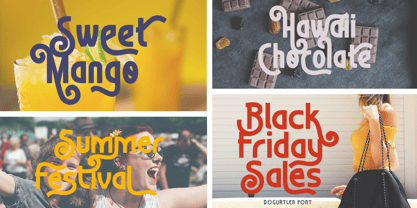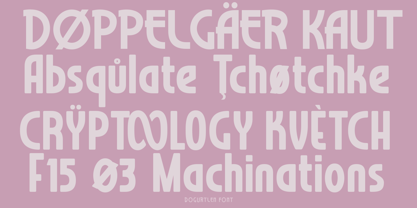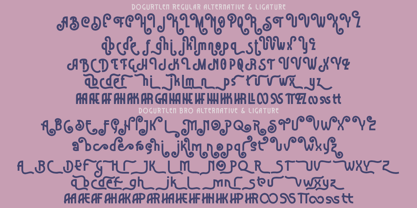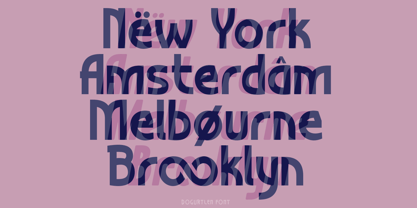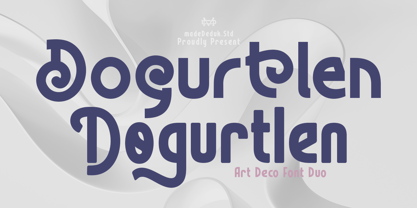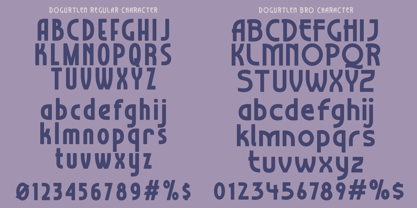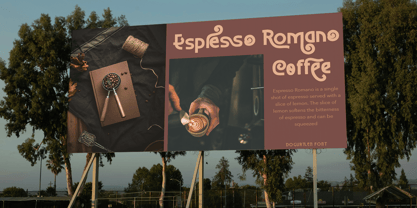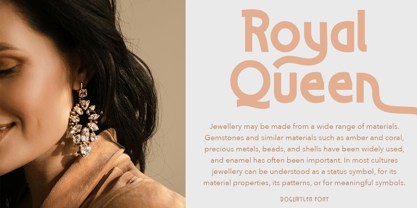
Dogurtlen
by madeDeduk
The Dogurtlen Font Family was designed by madededuk and published by madeDeduk. Dogurtlen contains 2 styles and family package options.
Dogurtlen is a font duo art deco with unique, luxury, elegant look. Have different widths with curly alternative and ligatures character to help you create variations for your creative needs, so you can combine them to get the perfect result for each of your design projects. This font has suitable specials for classic themed projects, ready to use on magazine, headline branding, book cover, logo, packaging product and any project's design.